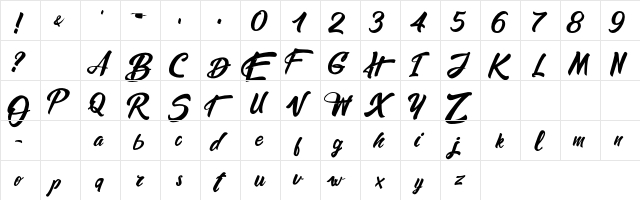
Cubiqle Part Regular
Cubiqle Part is a composed and adaptable typeface that performs quietly and consistently across a wide range of design contexts.